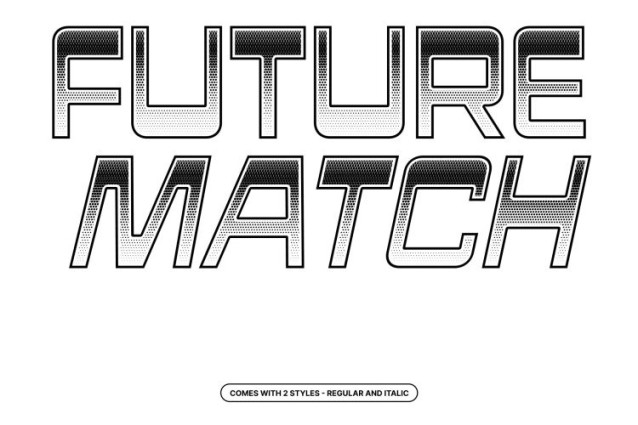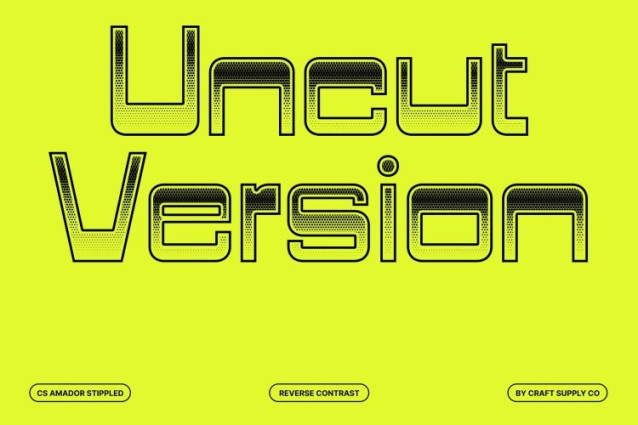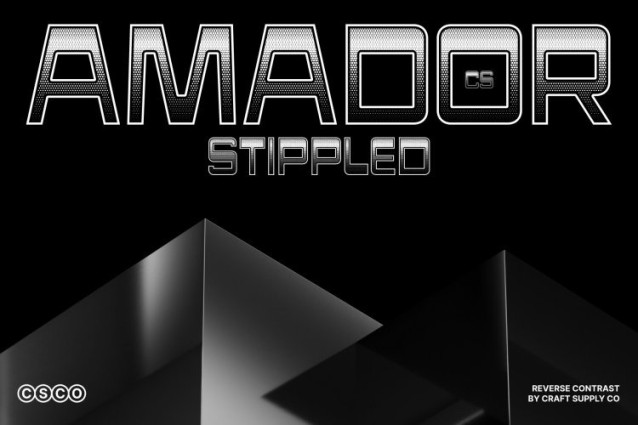
CS Amador Stippled Font This is a reverse contrast sans serif font that fuses masculine confidence with modern design precision. Built on bold shapes and modular geometry, the typeface delivers a powerful visual presence. The addition of a dense stippled texture reminiscent of classic ink-dot and stippling illustration techniques introduces an artistic, handcrafted dimension that adds depth and character to its assertive forms.
Distinctive Rhythm with Modern, Textured Expression
The reversed contrast structure creates an unexpected rhythm, transforming familiar letterforms into something daring and contemporary. Strong vertical strokes and confident proportions evoke industrial precision, while the stippled surface softens the geometry with subtle texture. This balance results in a font that feels bold yet refined, structured yet expressive.
Powerful Impact for Branding and Editorial Design
This font excels in branding, posters, editorial layouts, and promotional visuals that demand strength and personality. Its commanding presence makes it especially effective for logos, titles, and headlines where confidence, energy, and innovation are essential. The textured finish enhances visual interest without compromising clarity.
Versatile for Contemporary Creative Projects
From fashion and technology to modern cultural design, adapts effortlessly across creative disciplines. Its fusion of masculine form, modern style, reverse contrast, and stippled detailing creates a distinctive typographic foundation ensuring every project stands out with authority, originality, and lasting impact.